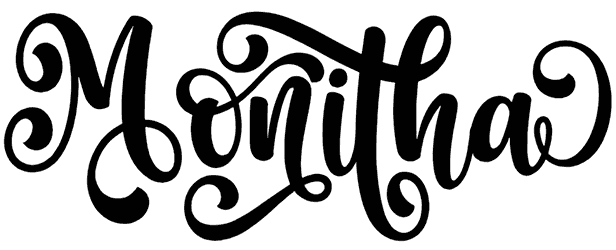
Monitha Font
Monitha is one of those gorgeous calligraphic fonts that don’t need extra decoration. This handwritten font has many twists that give you a lot of maneuvering power.
You can put these letters together in a compact form and make decorative texts or arrange them at a standard distance to create an effective design. This whimsical font is an ideal option for marking on the packaging, signs of fashion and clothing stores, and any other project that requires natural human beauty.